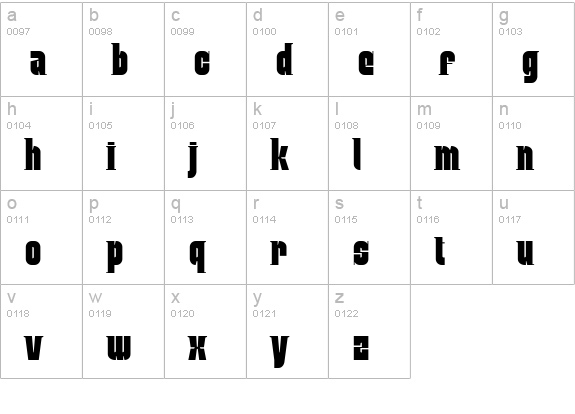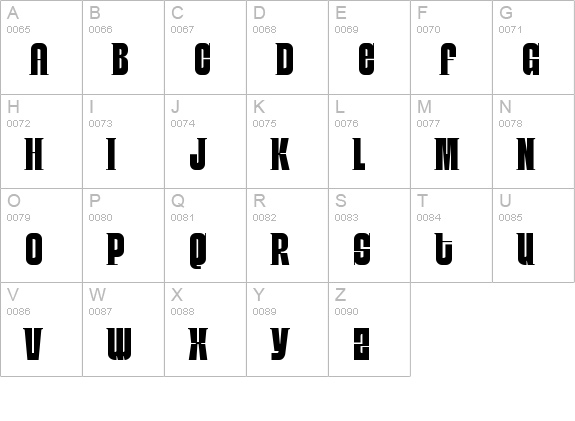
MobleySerif-Condensed Font Details
MobleySerif-Condensed is a distinctive, condensed-width variant in the MobleySerif typeface family \xE2\x80\x94 well suited to design and typography projects.
MobleySerif-Condensed font is a modern and elegant typeface that exudes sophistication and professionalism. Its condensed style makes it perfect for projects where space is limited but style is essential. The sharp serifs add a touch of classic refinement, making this font suitable for a wide range of design applications. And the best part? MobleySerif-Condensed is available for free download at FontsMarket.com. You can easily enhance your design projects with this versatile and eye-catching font without breaking the bank. Whether you're working on a logo, branding materials, or a website, MobleySerif-Condensed will elevate your work to the next level with its sleek and polished appearance. Don't miss out on the opportunity to add this stunning font to your collection. Download MobleySerif-Condensed today and bring a touch of timeless elegance to your designs.